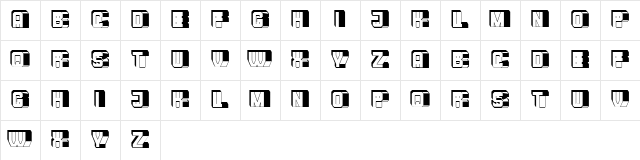
Razor Dark Regular Free Font
Razor Dark Regular
Design Context for Razor Dark
Razor Dark is a composed and adaptable typeface that performs quietly and consistently across a wide range of design contexts.
Pro Tip: Use Razor Dark in both headline and body roles to test its range before committing to a single application.